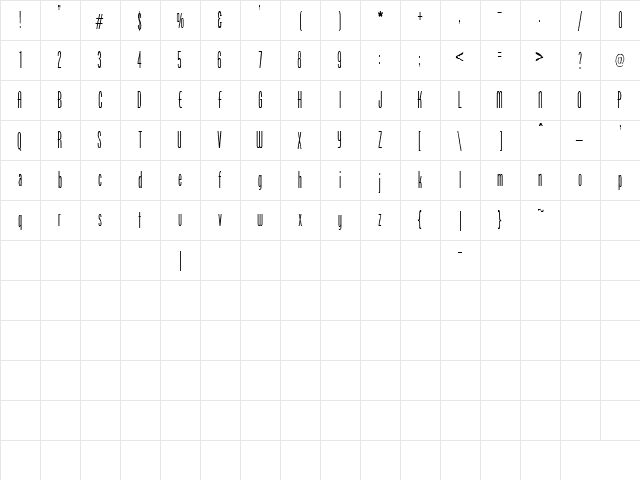
CanialleSSK Regular
Design Context for CanialleSSK Typeface
CanialleSSK offers clean, dependable letterforms without strong stylistic allegiance, making it a practical choice for designers who need flexibility.